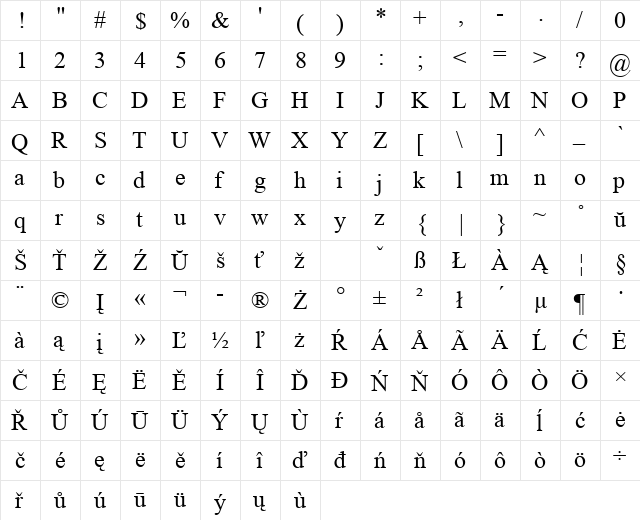
Liborsoft Latin F Regular
Design Context for Liborsoft Latin F Typeface
Liborsoft Latin F is a composed and adaptable typeface that performs quietly and consistently across a wide range of design contexts.